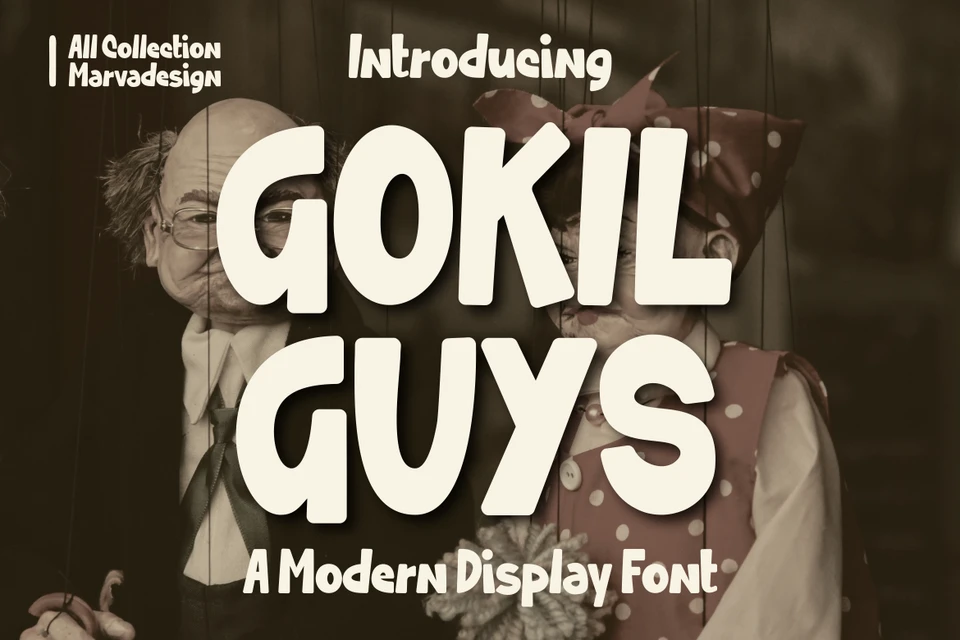
MarketplaceFontsGokil Guys - A Modern Display Font
Introducing our new product GOKIL GUYS Font - Modern Font GOKIL GUYS Font** - Modern Font is a bold and authentic display font. The font is suitable for any branding project like logo,Template , Product and many more. outstanding in a wide range of contexts.